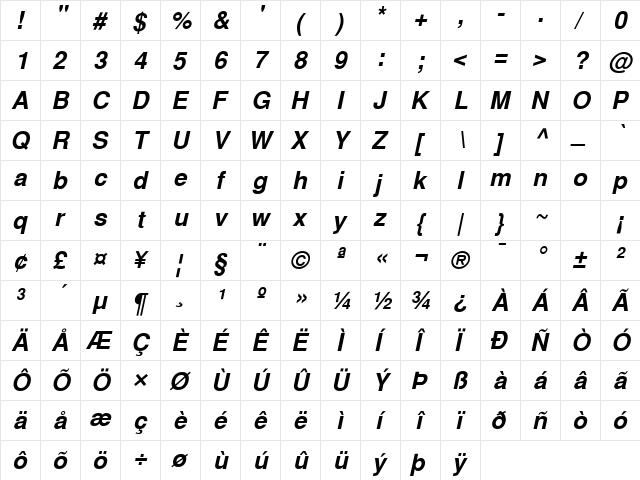
HeaveneticaSH Bold Oblique
Design Context for HeaveneticaSH Typeface
HeaveneticaSH is a composed and adaptable typeface that performs quietly and consistently across a wide range of design contexts. Its italic angle brings a sense of urgency and motion to the letterforms. The heavy weight commands attention and anchors typographic hierarchies.